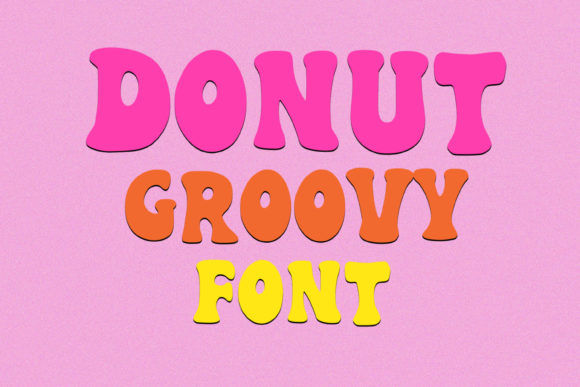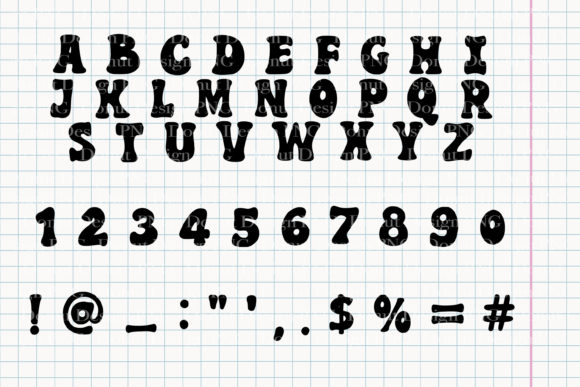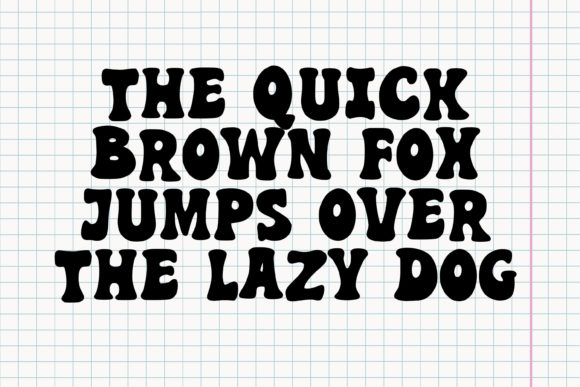
Donut Groovy is a retro hand-drawn display font, great for creating outstanding designs.
This font is perfect for any of your casual projects, such as t-shirts, holiday cards, books, mugs, tumblers, and much more.
Donut Groovy Font